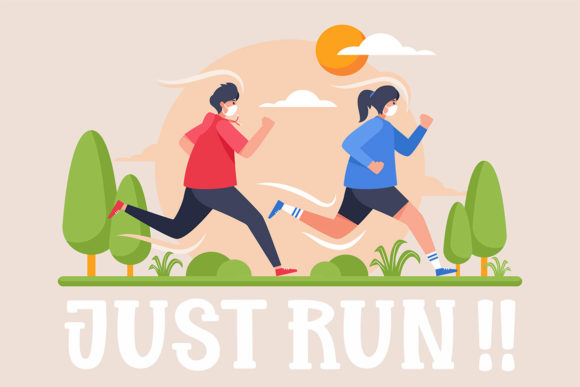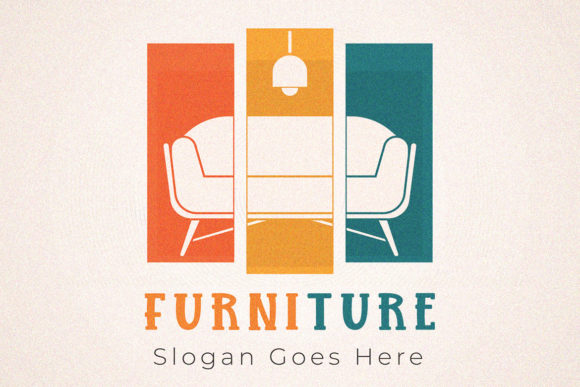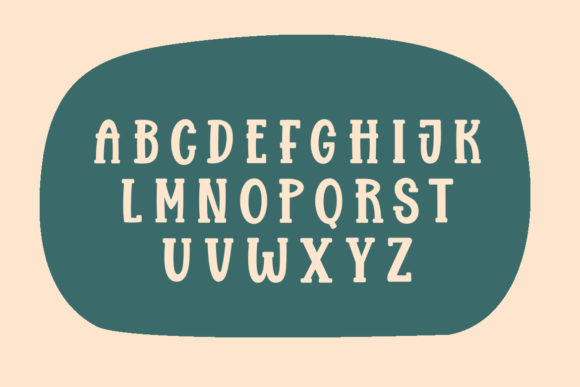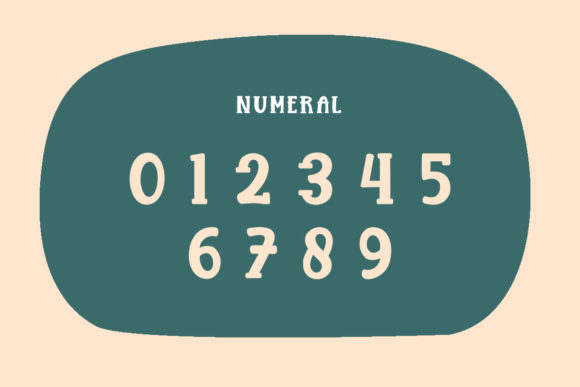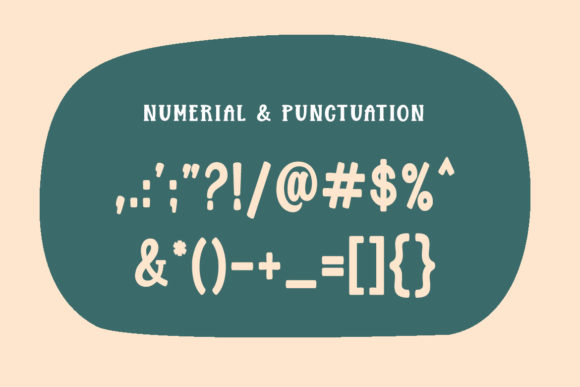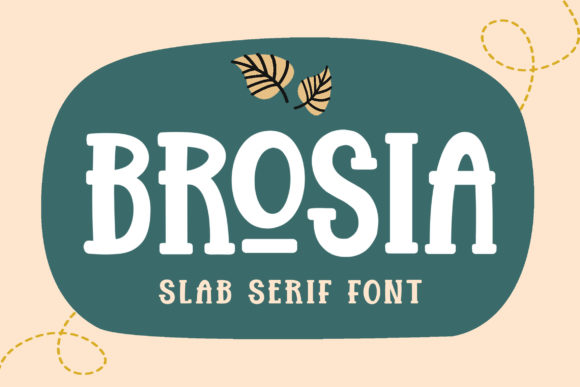
The Ultimate Guide to Brosia Font: Elevate Your Designs with this Chunky Slab Serif
I’ll never forget the time I was working on a project for a client who wanted a bold, eye-catching font to match their brand’s playful personality. I scoured the internet for hours, trying out font after font, but nothing seemed quite right. That was until I stumbled upon Brosia – a chunky lettered slab serif font that instantly caught my attention. In this article, I’ll share my experience with Brosia, its features, and how to make the most of it in your designs.
An Honest Review of Brosia Font
So, what makes Brosia so special? Let’s dive into the good stuff and some of its quirks.
What I Love About Brosia ✨
- 💥 Impactful and attention-grabbing: Brosia’s chunky letters demand attention, making it perfect for headlines, titles, and emphasis.
- ✅ Versatile: It can be used in a wide range of projects, from digital designs to print materials, and even crafts.
- 🎉 Easy to read: Despite its bold nature, Brosia remains surprisingly legible, even at smaller sizes.
- 🔥 Customizable: With OpenType features and stylistic alternates, you can experiment with different variations to match your brand’s tone.
- ⚠️ Overuse can be overwhelming: Brosia’s boldness can quickly become overwhelming if overused. Balance it with simpler fonts for optimal results.
- 🤔 Limited suitability for body text: While legible, Brosia’s chunky nature makes it less suitable for large blocks of body text.
- Explore OpenType features, such as ligatures and stylistic alternates, to add personality to your text.
The Story Behind Brosia Font
Rumor has it that Brosia was inspired by vintage road signs and retro advertising. Its designer aimed to create a font that was both bold and approachable – perfect for grabbing attention without being too overpowering.
Q: What type of projects is Brosia best suited for?
A: Brosia is versatile and can be used in various projects, such as branding, posters, flyers, and digital designs.
Q: Does Brosia support OpenType features?
A: Yes, Brosia supports OpenType features, including ligatures and stylistic alternates, which can enhance your designs.
Q: Can I use Brosia for body text?
A: While Brosia is legible, its chunky nature makes it less suitable for large blocks of body text. Use it for headlines and titles instead.